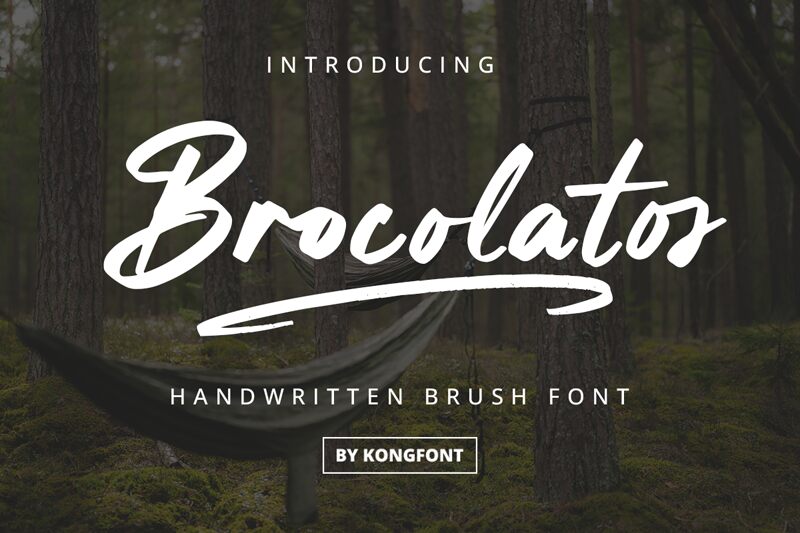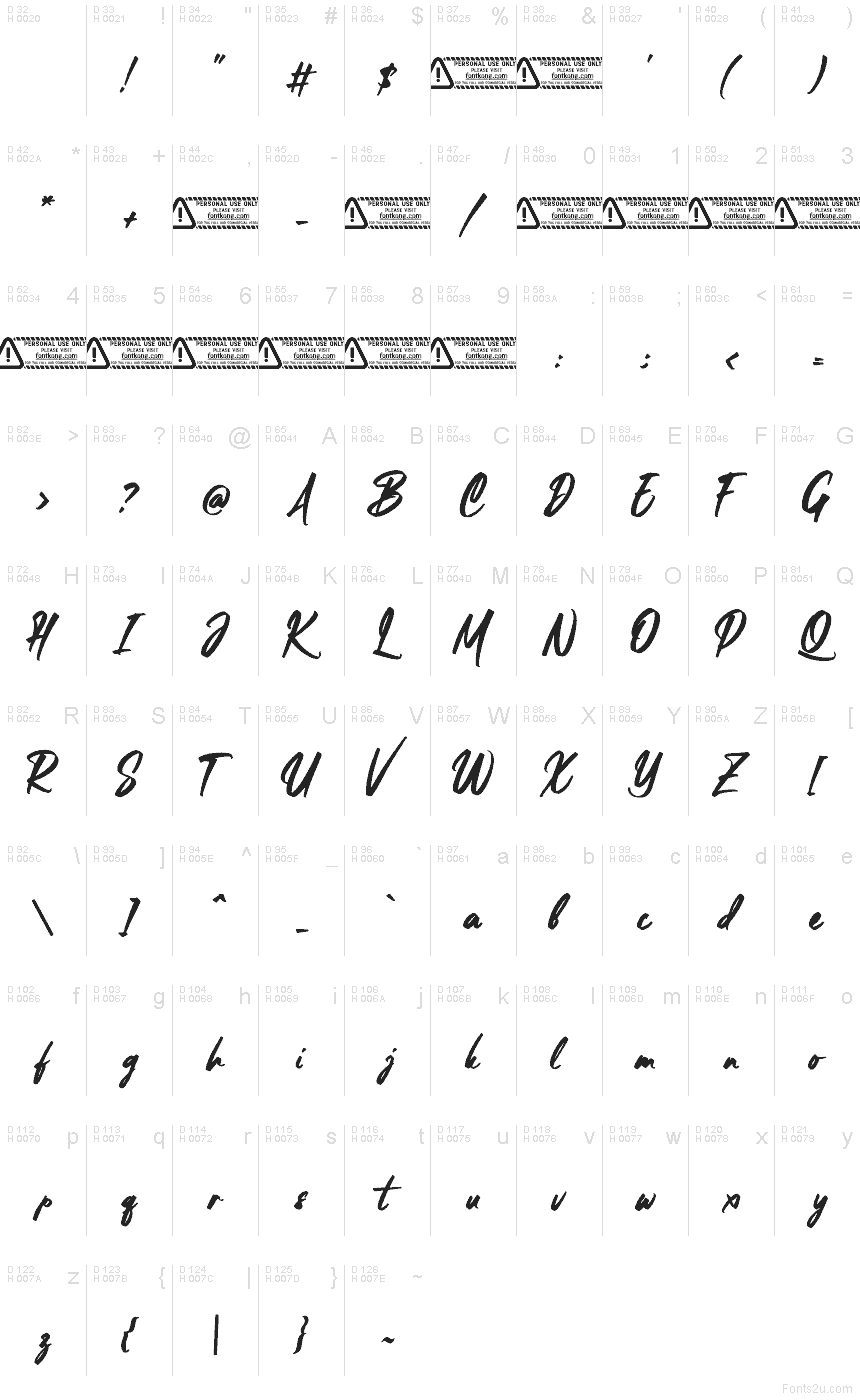
Brocolatos font by Kong Font is a free brush script font that finally hits the sweet spot between raw, hand‑painted energy and clean readability. Its bold, slanted strokes carry a tactile, inky texture without turning messy, and the rhythm feels steady enough for quick scanning. You get lively motion with dependable spacing, so headlines and short phrases look spontaneous yet stay crystal clear.
This free font shines on café menus, artisanal packaging, social posts, event posters, product labels, and logo wordmarks that need warmth without chaos. Using Brocolatos, lean into short lines and punchy phrases; it works beautifully at medium‑large sizes where the brush grain pops. Simple pairing tip: match it with a crisp, neutral sans for body text to let the script lead the show.